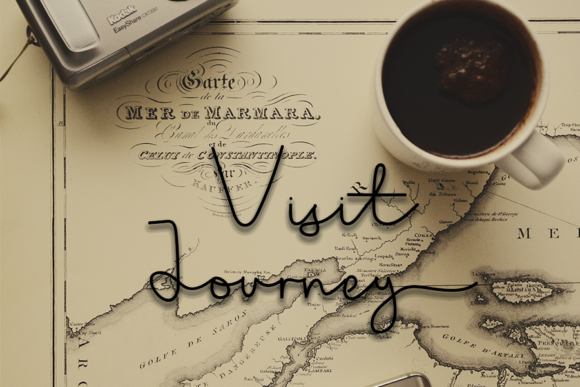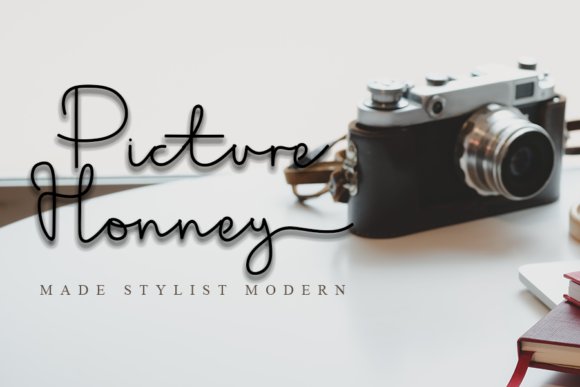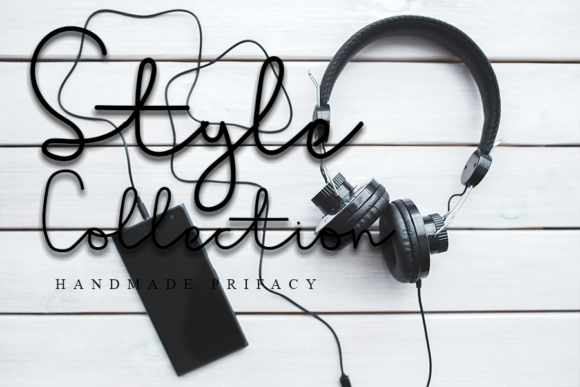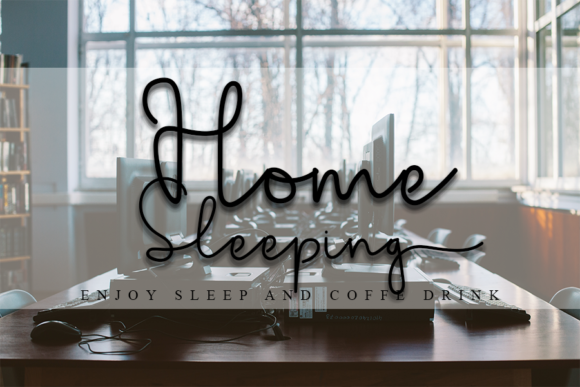
Shopping Font
About Shopping Font
Shopping is a casual, fun handwritten font. Clean and a little bit quirky, this font is the perfect fit for all of your logos, branding, social media, and crafty DIY projects.